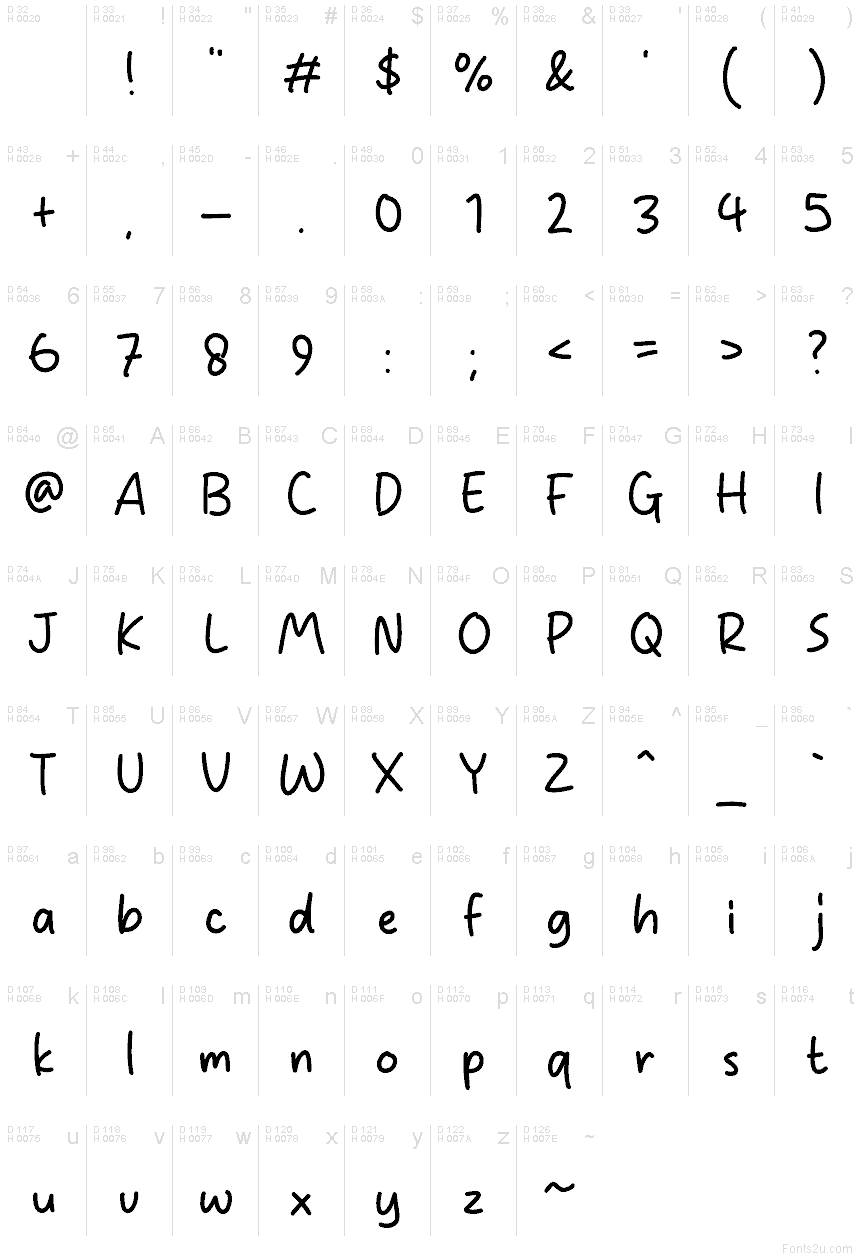
Hello Sister
Hello Sister font by MJType is a free handwritten font that captures the feel of quick, confident marker strokes without ever getting messy. Its smooth, rounded lines and even spacing keep things friendly and readable, so you get personality without chaos. The letters feel like a neat note on a fridge—casual, warm, and easy on the eyes.
Using Hello Sister, you can bring a relaxed, human touch to quote graphics, kids’ projects, greeting cards, social posts, branding for cozy products, and informal packaging. This free font holds up well at medium sizes where its playful energy stays clear. Try pairing Hello Sister with a clean geometric sans for body copy to balance its handwritten charm.